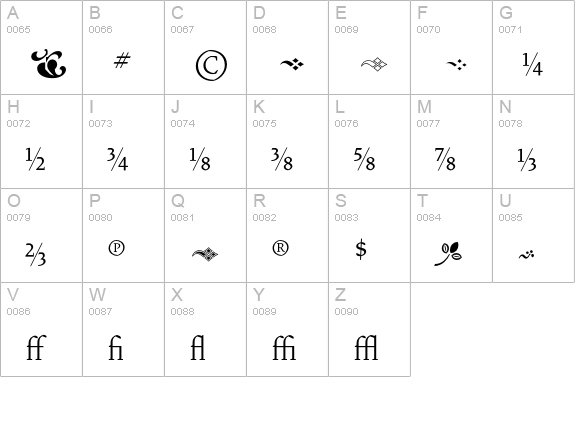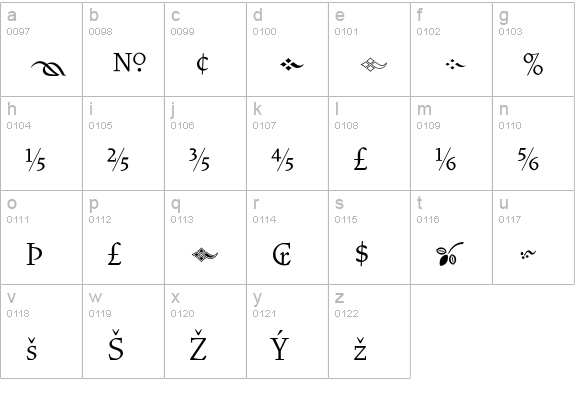
VendettaLightFractions Font Details
VendettaLightFractions font is a mesmerizing display font that exudes elegance and sophistication. With its exquisite letterforms and delicate curves, this font is perfect for adding a touch of luxury to any design project. What sets VendettaLightFractions font apart is its unique fractional styling. Each character is meticulously crafted, with fractions elegantly integrated within the letterforms. This makes it an ideal choice for any design requiring precise fractions, such as recipe books, technical manuals, or mathematical publications. The versatility of VendettaLightFractions font is truly impressive. It can effortlessly adapt to various design styles, from vintage to modern, from minimalist to ornate. Its timeless appeal ensures that it will remain a staple in your font collection for years to come. One of the best features of VendettaLightFractions font is that it is free! Yes, you read that right. This stunning font is freely available to download at FontsMarket.com. Now you can effortlessly enhance your designs without breaking the bank. Whether you're a professional designer or a creative enthusiast, VendettaLightFractions font is a must-have tool in your creative arsenal. Its intricate detailing, elegant fractions, and free availability make it an irresistible choice for designers seeking to make a lasting impression. So why wait? Head over to FontsMarket.com and download VendettaLightFractions font today. Unleash your creativity and let this font elevate your designs to new heights.